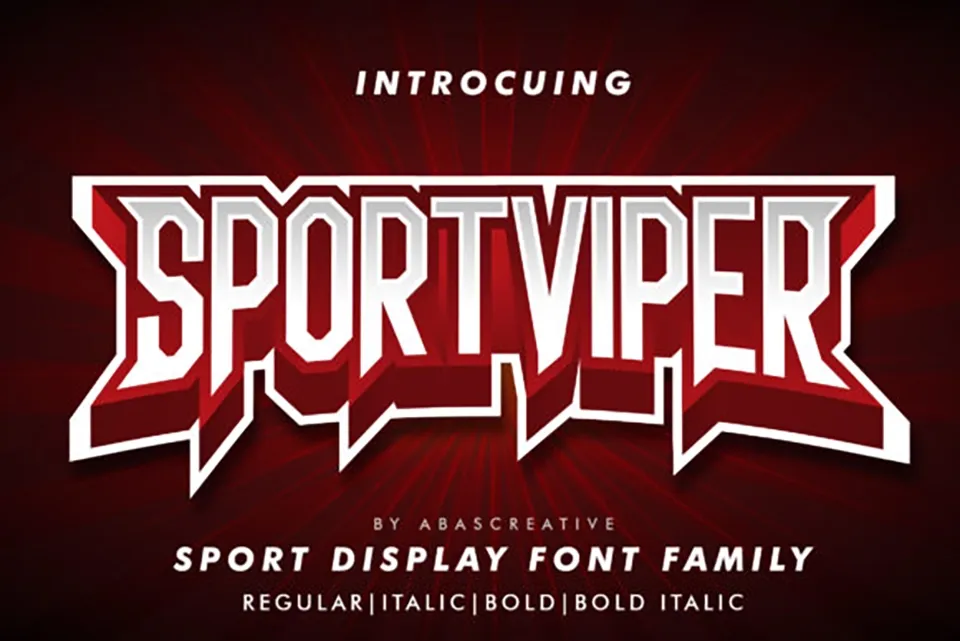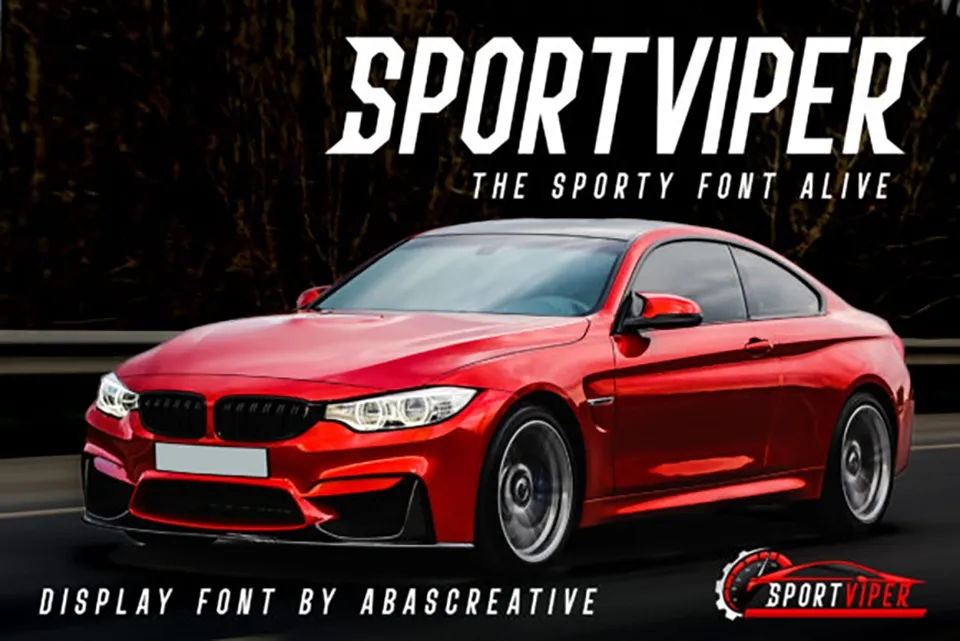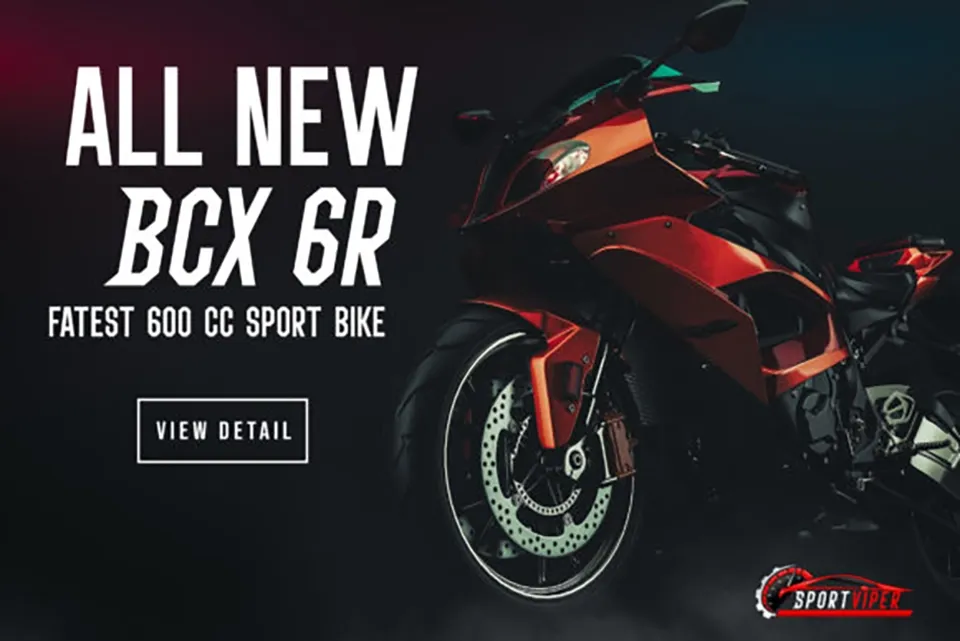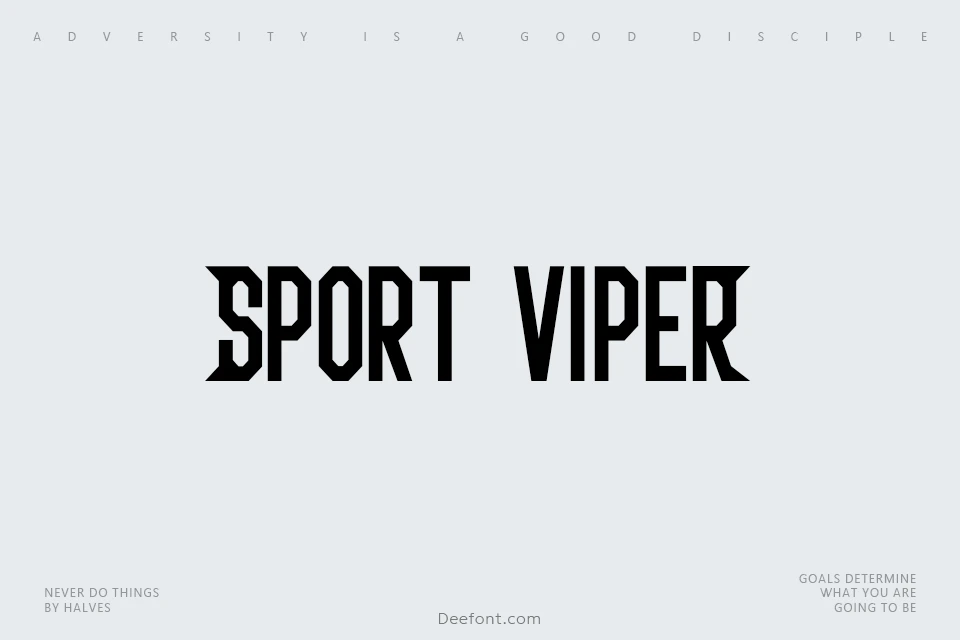
Sport Viper Display Font
Sport Viper Display Font is a bold and incredibly authentic display font inspired by science fiction movies, featuring a modern and clean look. Designed to make your creative ideas stand out, it is perfect for posters, social media, headlines, content, user interfaces, titling, large formats, and more. Its striking style ensures your designs capture attention wherever used.